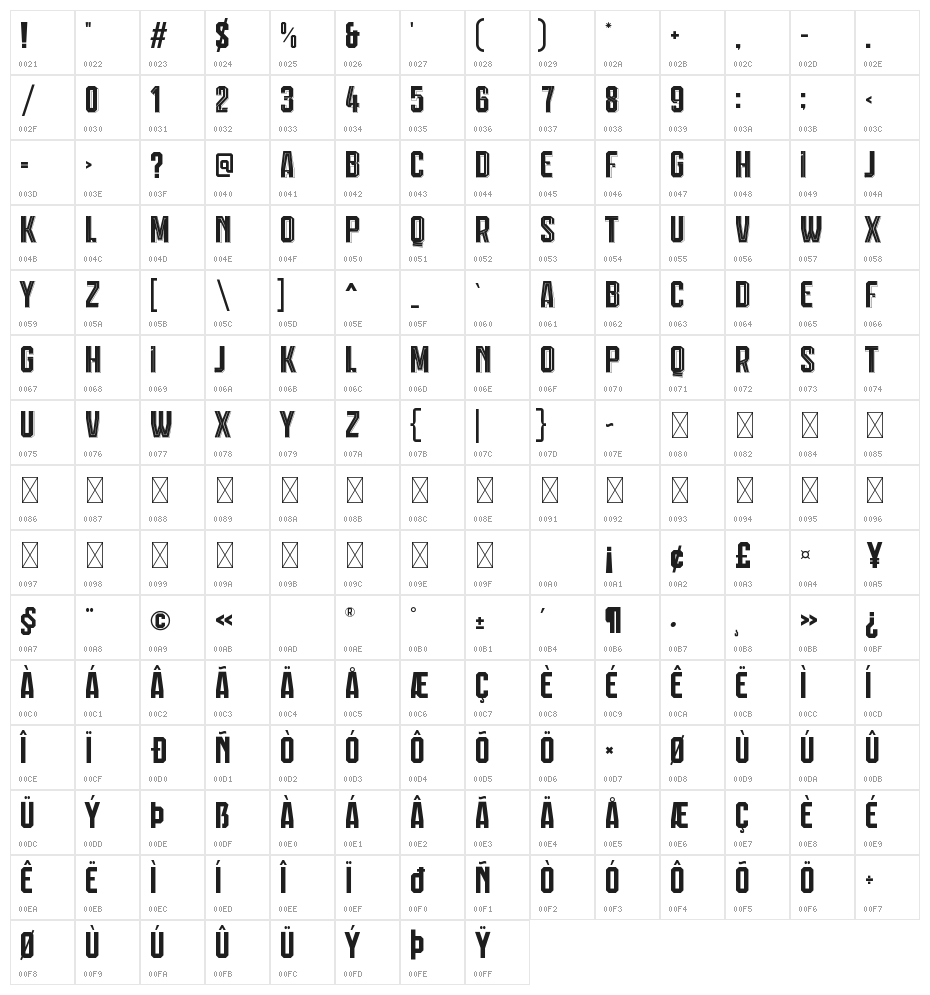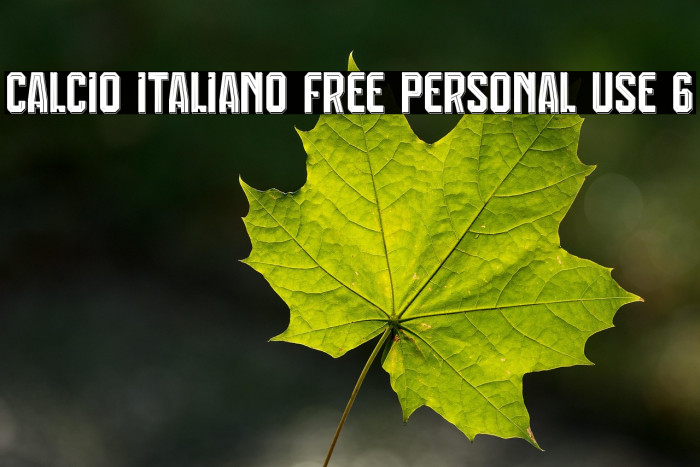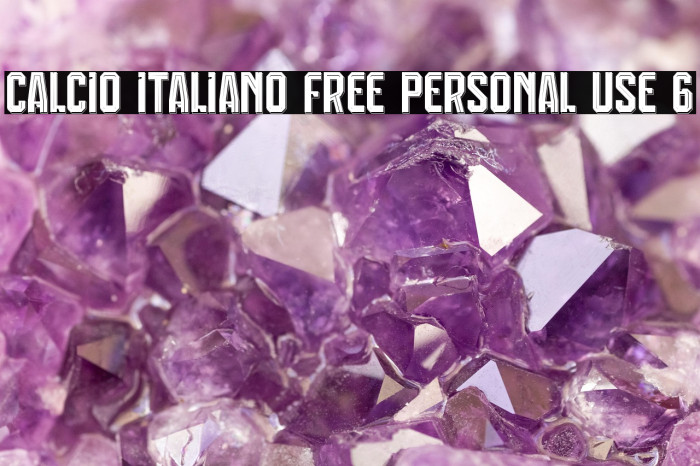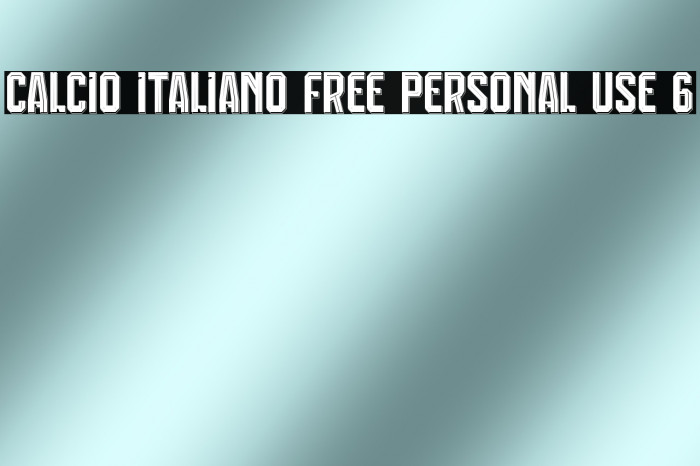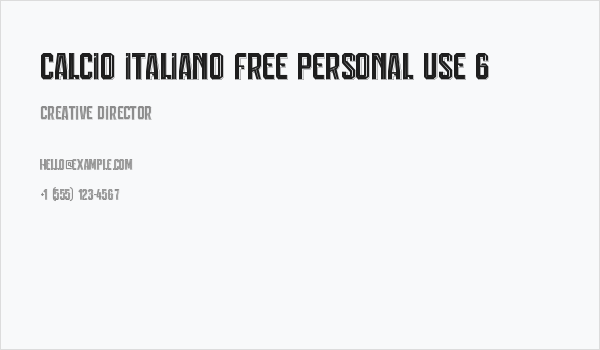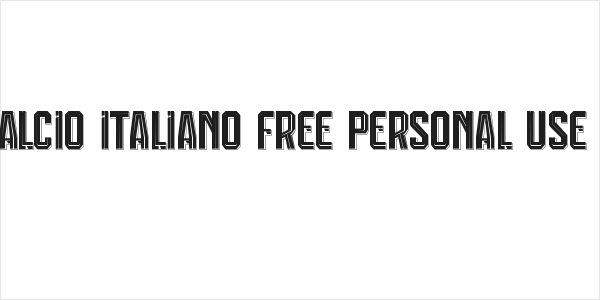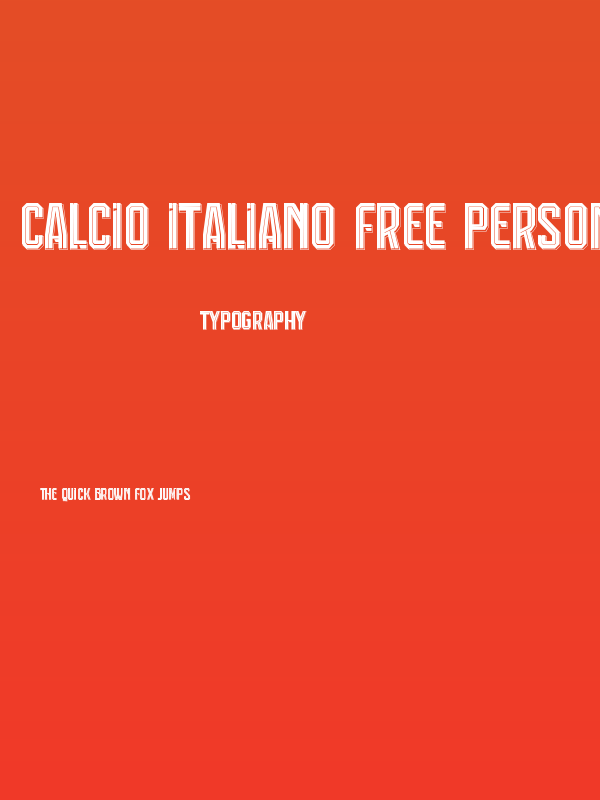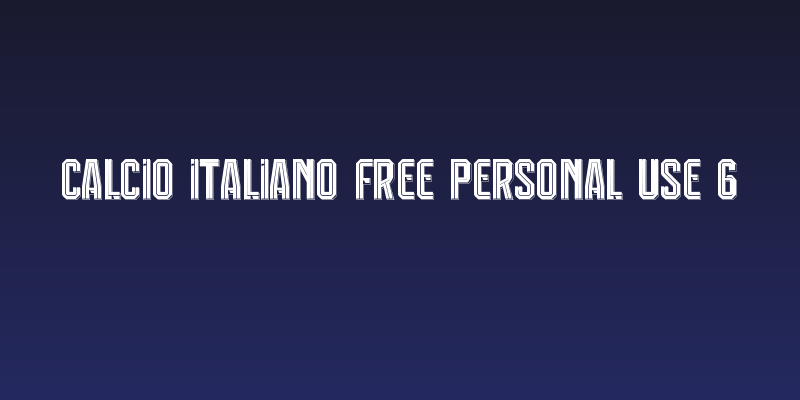
Calcio Italiano Free Personal Use 6 Font
Calcio Italiano Free Personal Use 6 Description
This font features a bold, geometric design with a strong emphasis on vertical and horizontal lines, creating a striking and impactful appearance. The characters are outlined with a double-layered effect, adding depth and dimension. The style is reminiscent of vintage sports or collegiate lettering, making it ideal for projects that require a bold and dynamic presence. The uppercase letters are particularly prominent, with sharp angles and a structured form that conveys strength and stability. The numbers and special characters maintain the same bold style, ensuring consistency across all text elements.
| Proposed Projects | Ideal for sports team branding, event posters, merchandise, and retro-themed designs. |